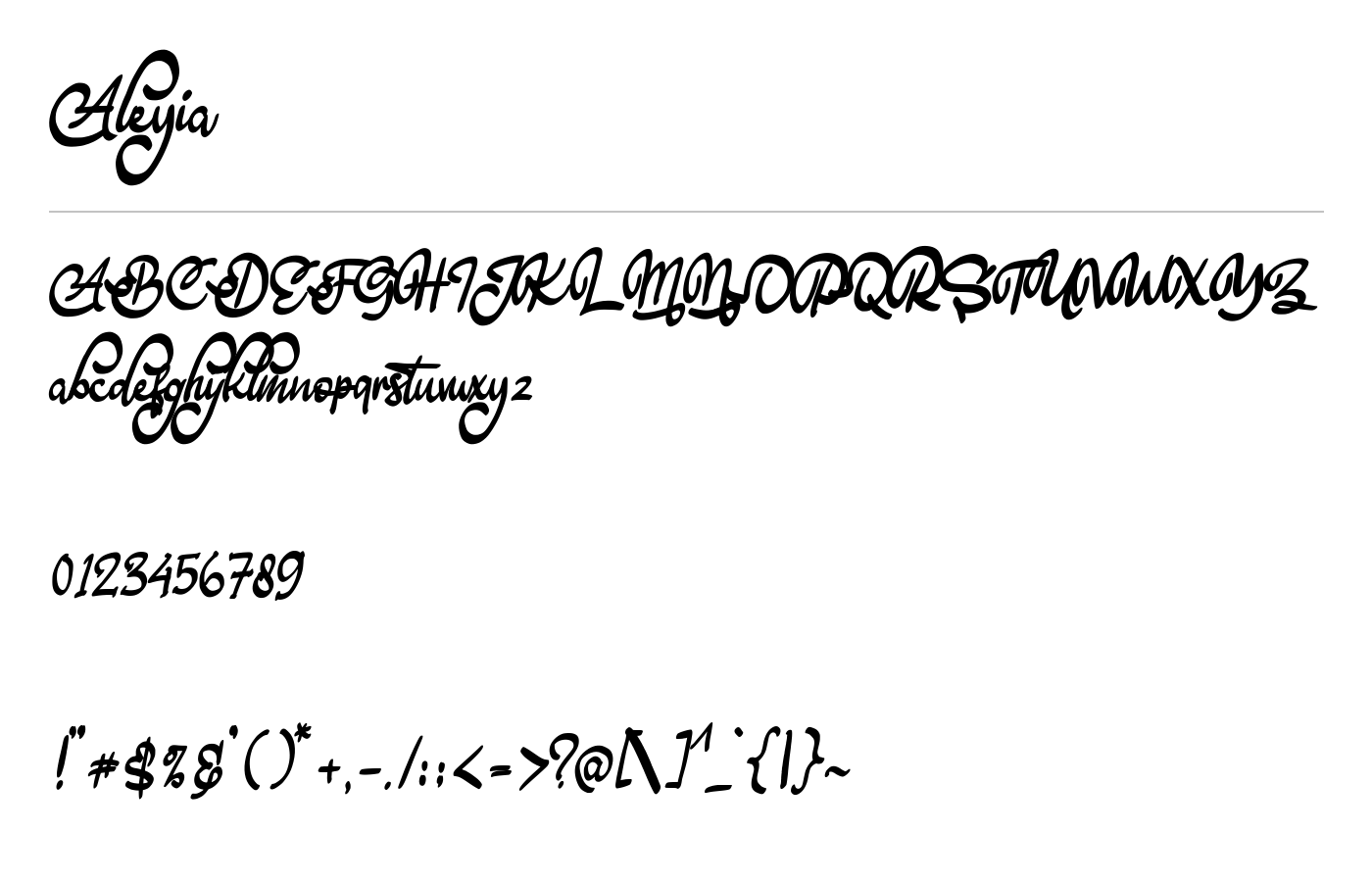
Aleyia is a bold, script-style font with a lively, handwritten feel characterized by flowing, connected letterforms and expressive loops, especially in the uppercase letters. Its moderate contrast and smooth curves give it an elegant and playful personality, making it ideal for branding, logos, invitations, and creative projects that seek a stylish yet approachable look. This font shines in display use where it can add a touch of charm and sophistication.
Aleyia Font